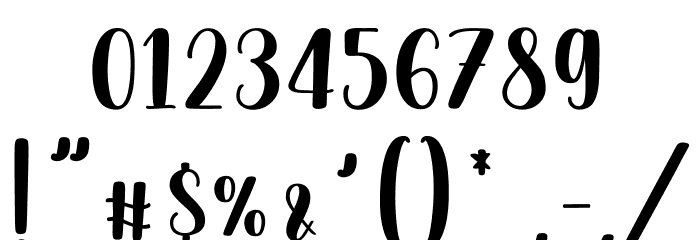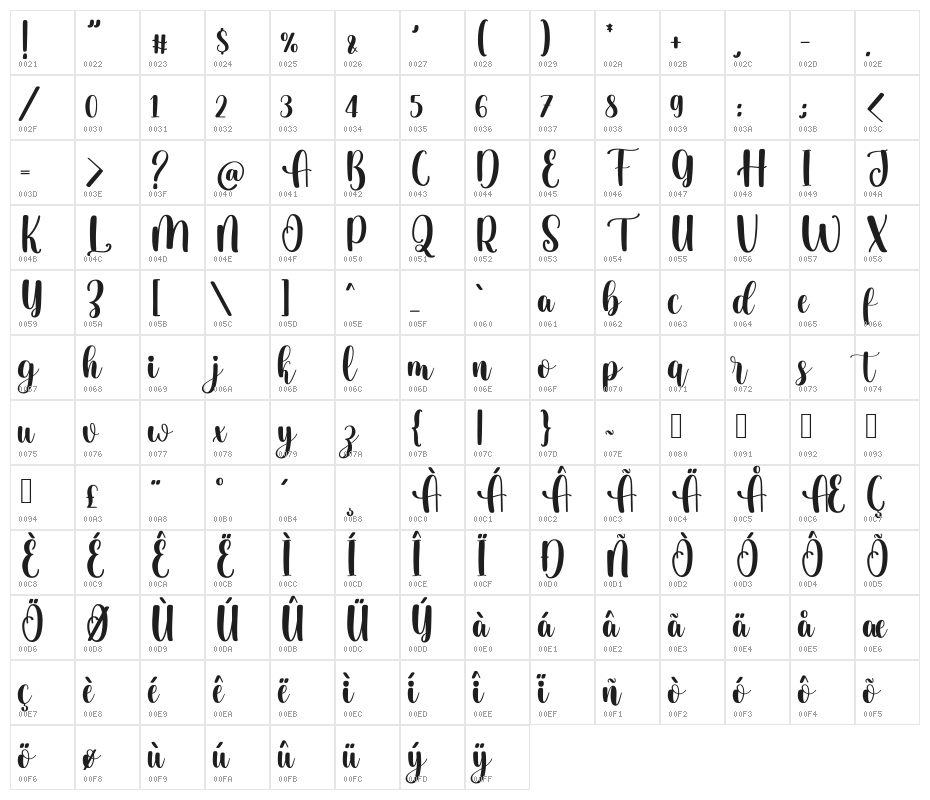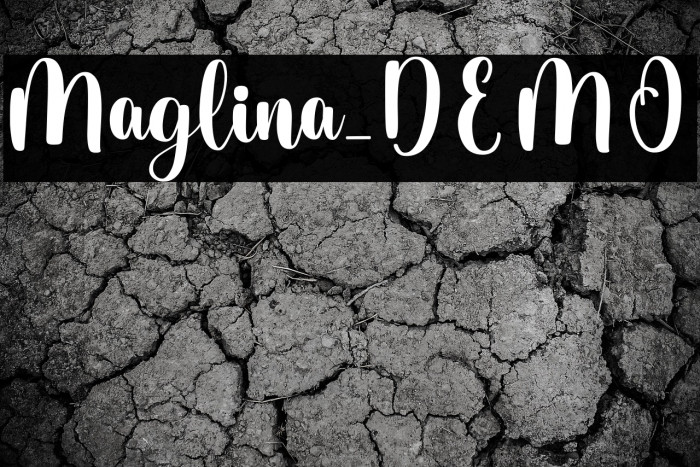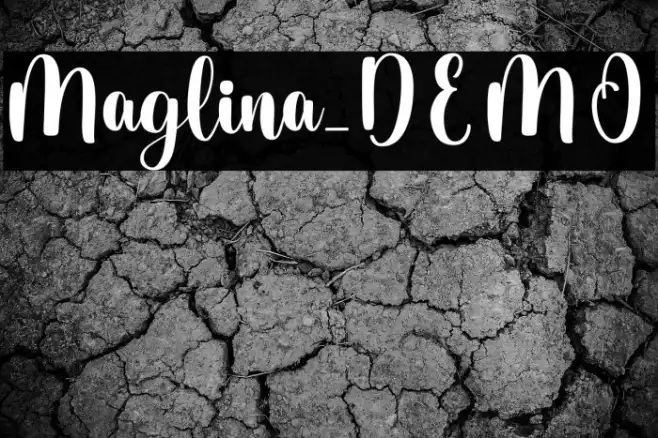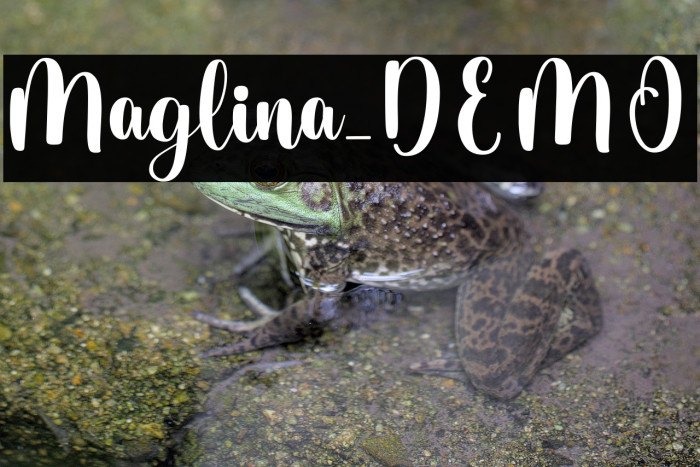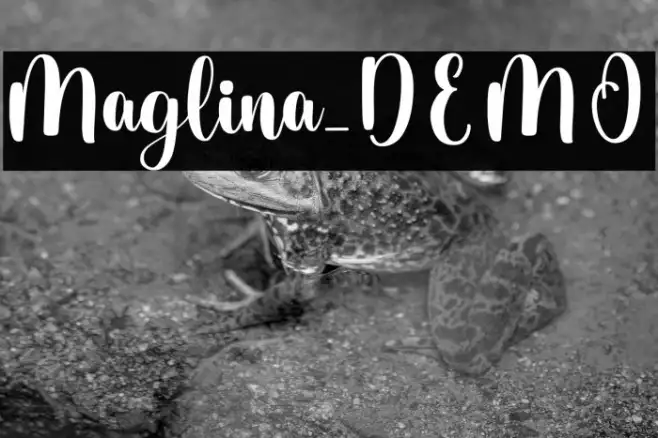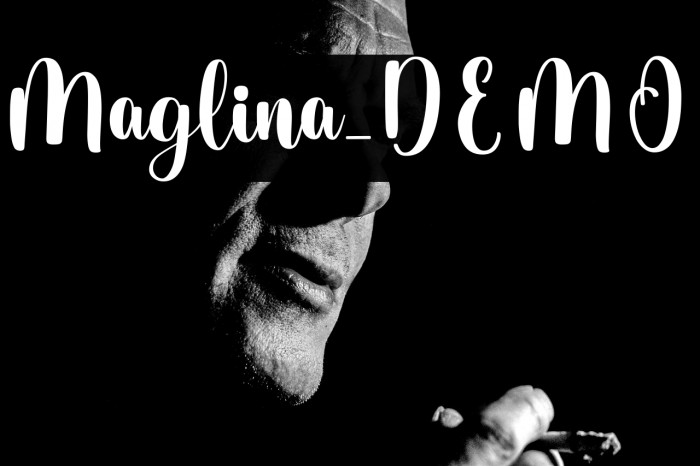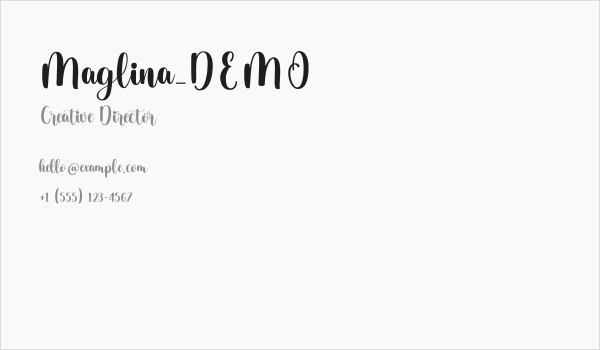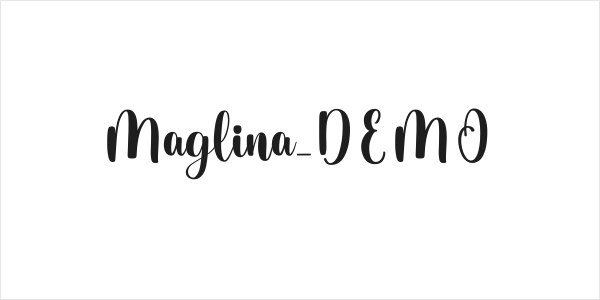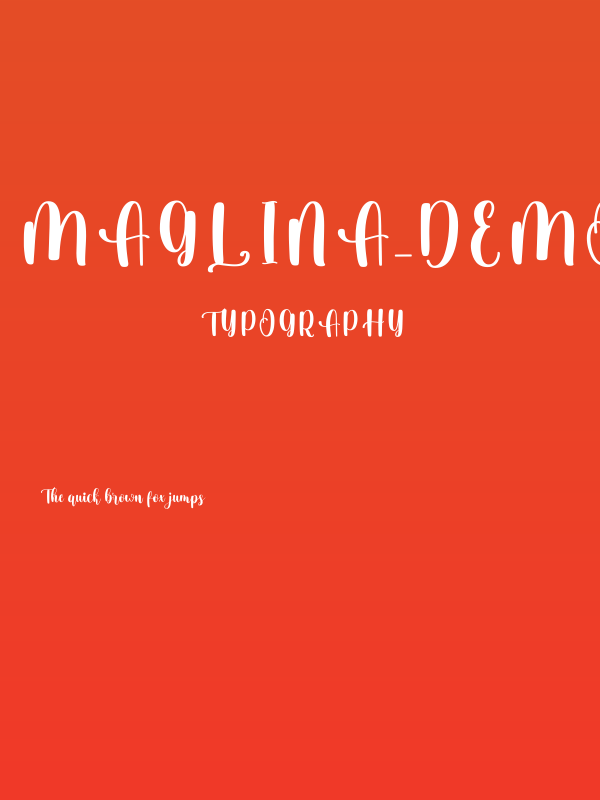
Maglina_DEMO Font
This font features a bold and expressive script style, characterized by its flowing, cursive letters that convey a sense of elegance and creativity. The uppercase letters are distinct with their sweeping curves and loops, while the lowercase letters maintain a consistent fluidity, enhancing readability. Numbers and special characters are crafted with the same attention to detail, ensuring a cohesive look across all text elements. The font's thick strokes and high contrast between thick and thin lines add to its dramatic appearance, making it ideal for eye-catching designs.